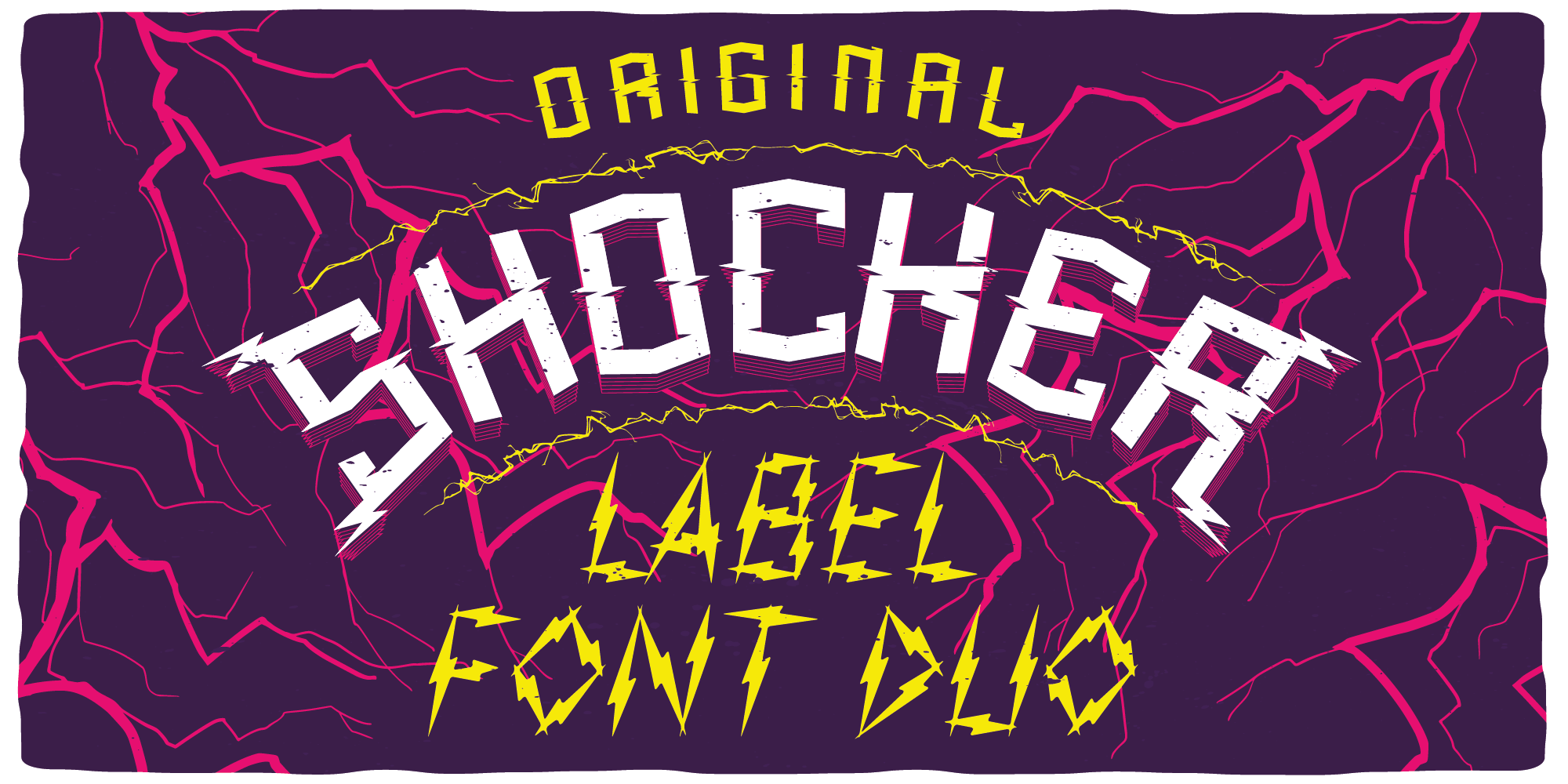
Shocker Font is perfect for electrifying design projects including horror movie titles, shocking entertainment venues, dramatic theater productions, intense gaming interfaces, electric music festivals, high-voltage promotional campaigns, thrilling event marketing, and spine-tingling advertising materials. This electrifying typeface excels in haunted attractions, shock entertainment companies, electric dance music venues, dramatic performance theaters, and projects that celebrate the power of surprise and electrifying entertainment experiences.
What makes Shocker Font exciting is its electrifying shock character that perfectly captures the essence of high-voltage energy and dramatic surprise. The font features jagged letterforms with electric styling that reflects the sudden impact and thrilling intensity of shocking entertainment. Its dramatic design elements embody the spirit of electric energy and surprising impact, making it perfect for projects that need to convey intensity, surprise, and connection to high-energy entertainment. The carefully crafted electric details create an atmosphere of shocking authenticity and electrifying sophistication.
Shocker Font comes in multiple family variations including electric, dramatic, intense, and shocking styles. Each weight maintains the distinctive shock character while offering different levels of electric intensity and dramatic presence. The font family includes electric alternates, shock ligatures, and dramatic variations that provide designers with comprehensive options for creating truly electrifying and authentically shocking typographic compositions that celebrate intense entertainment.
Whether you're designing shock branding, creating dramatic marketing materials, or developing electrifying promotional graphics, Shocker Font Free Download provides the perfect typographic foundation for projects that celebrate shock excellence and electric sophistication. This extraordinary typeface transforms ordinary text into compelling expressions of electric wisdom and shocking energy. Download this electrifying font today and shock your design projects with the electric authenticity and dramatic intensity that captures the essential spirit of high-voltage entertainment and thrilling surprise experiences.